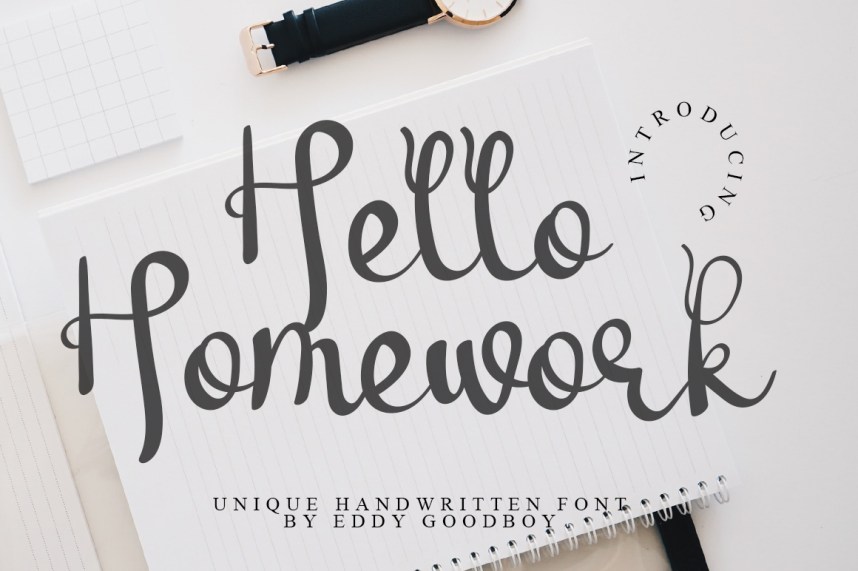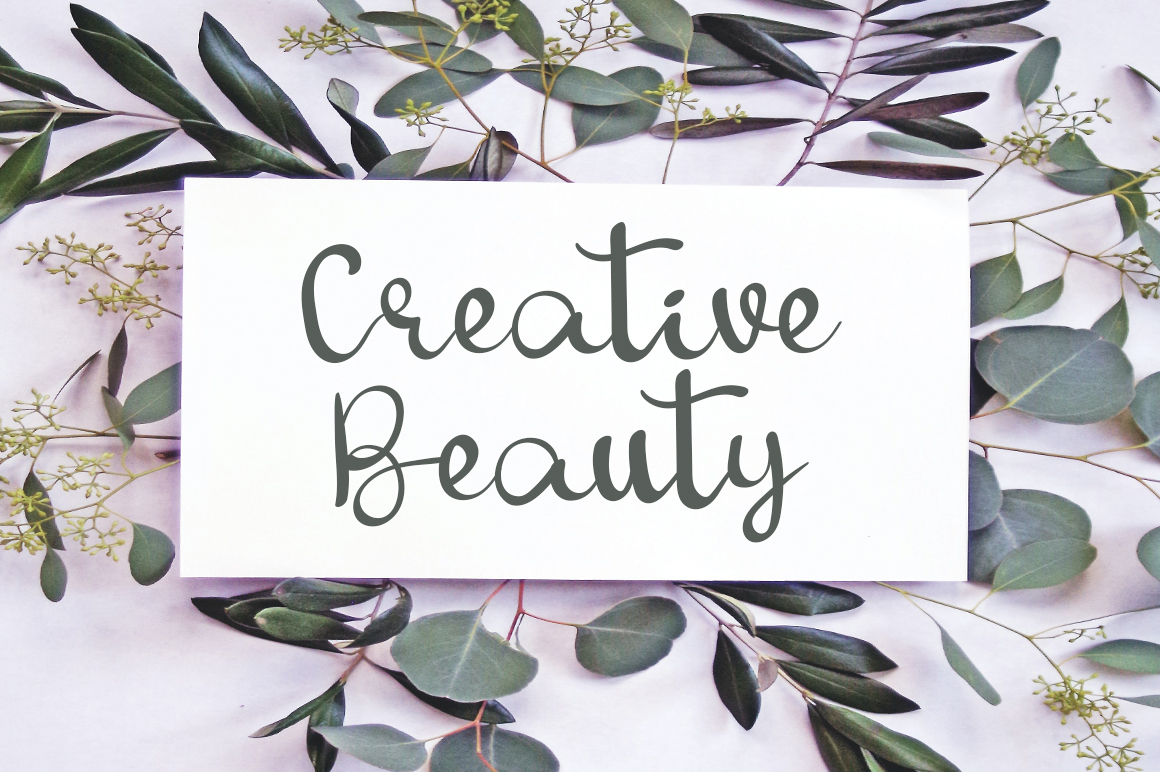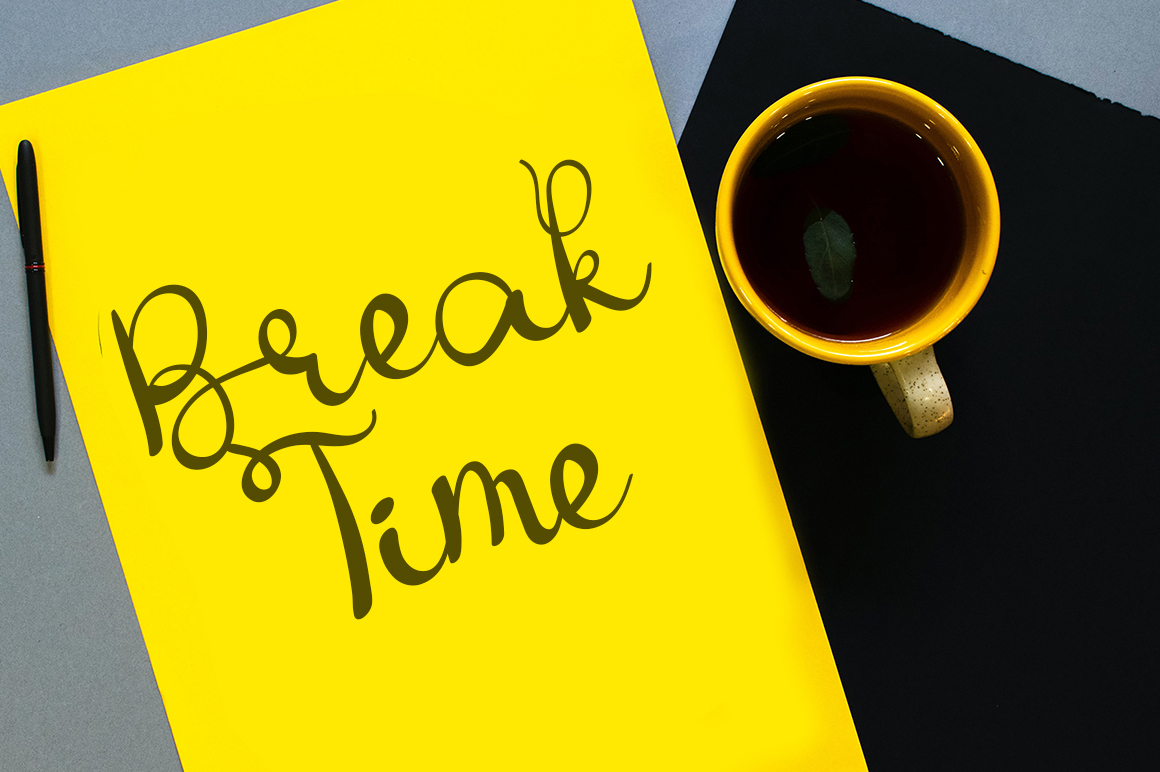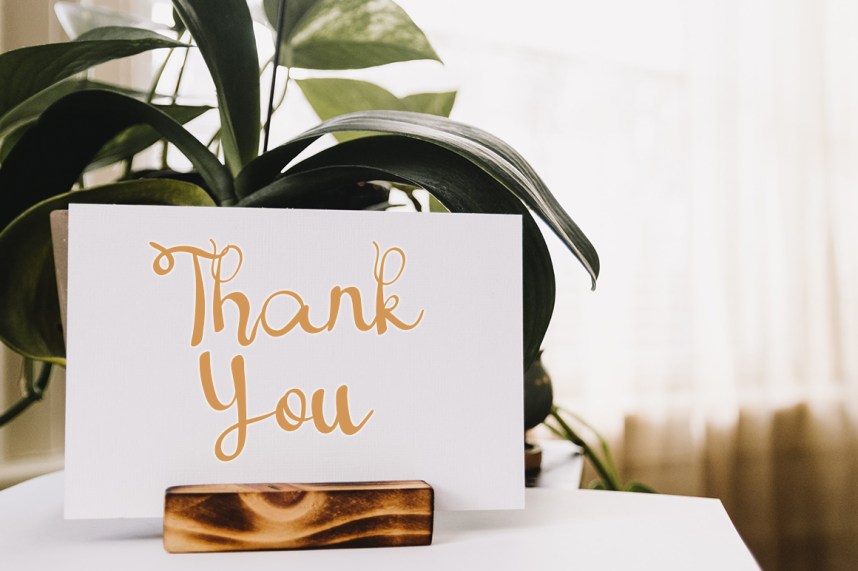
Hello Homework Script Font
It’s a chic, refined script font that emanates sophistication and elegance. Its stylish alternates and ligatures make this font the perfect match for any project.